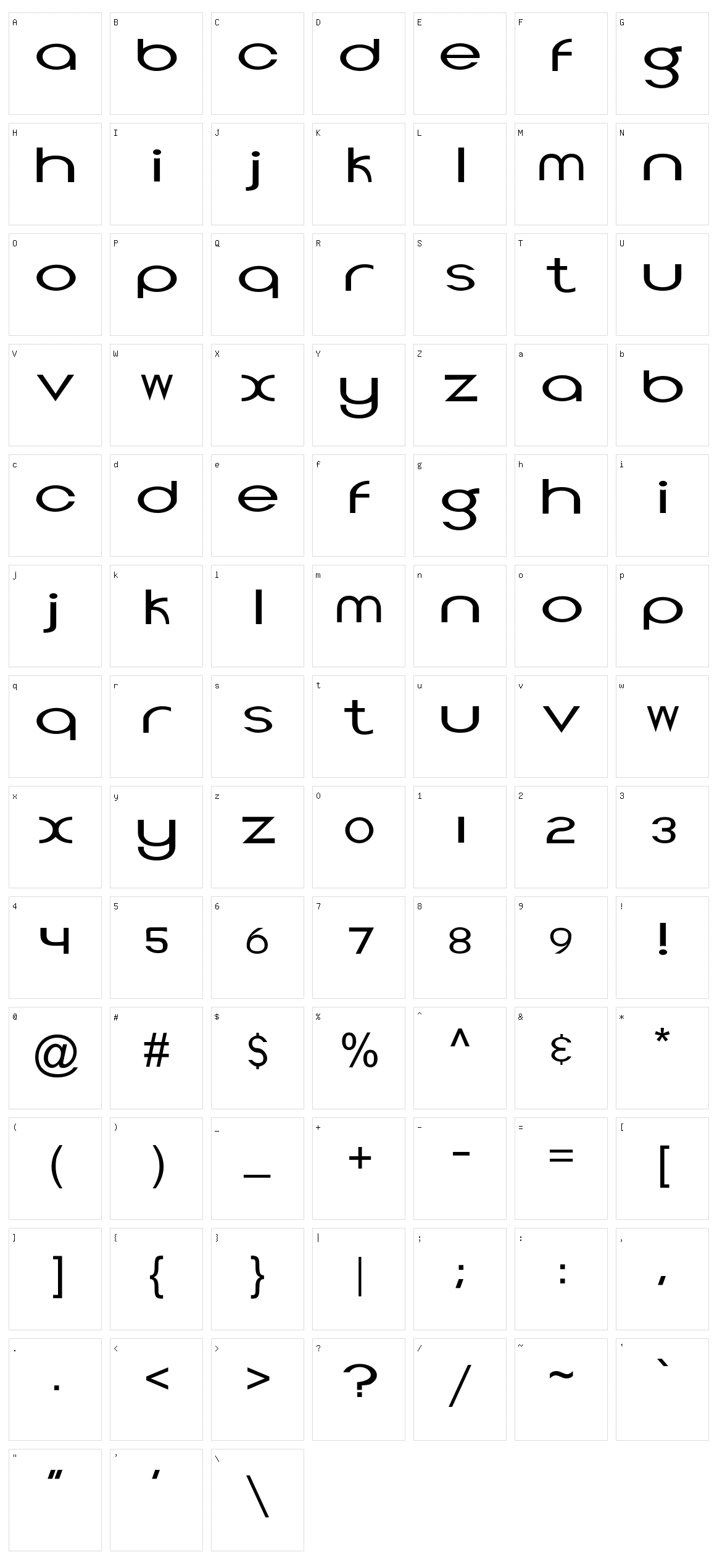
Topeka Font
The Topeka font is a sans-serif display font that resembles the Bing logo. I created this font entirely in FontLab Studio. It comes with alphanumeric punctuation, currency and international characters.